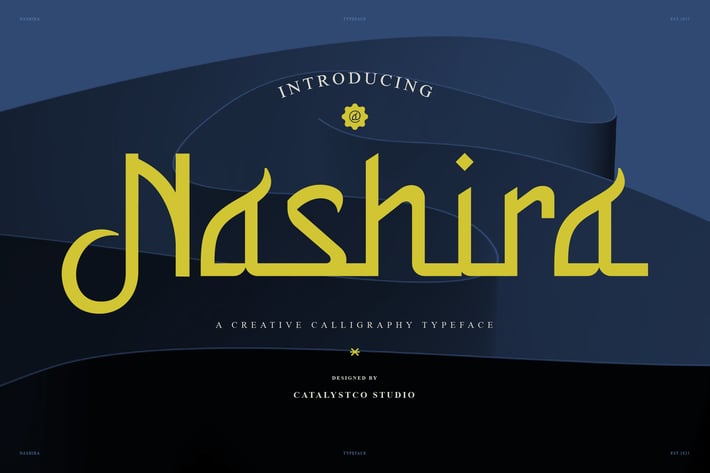
Nashira Arabic Font
Nashira Arabic Font presents itself as a creative calligraphy typeface, characterized by its elegant and flowing lines that exude an artistic and unique charm. The letterforms possess a distinctive structure, blending smooth curves with subtle angularity, creating a visually captivating rhythm across words. This font is designed to evoke a sense of sophistication and creativity, making it an ideal choice for projects seeking a decorative yet legible touch. Its fluid nature suggests a handcrafted feel, adding a personal and artistic flair. Nashira aims to bring a touch of refined beauty to designs, particularly those within the realms of artistic expression and elegant branding.
Ligatures & Alternate
Nashira Arabic Font Suitable for Wedding Stationery, Creative Branding, Editorial Design, Luxury Packaging, Social Graphics, Book Covers, Art Posters, Personalized Cards, Website Headers, Specialty Labels, Boutique Signage, Elegant Menus, Event Branding, Artistic Merchandise, Digital Artwork, Calligraphy Projects, Jewelry Branding, Wellness Branding, Fashion Branding, Personalized Gifts.